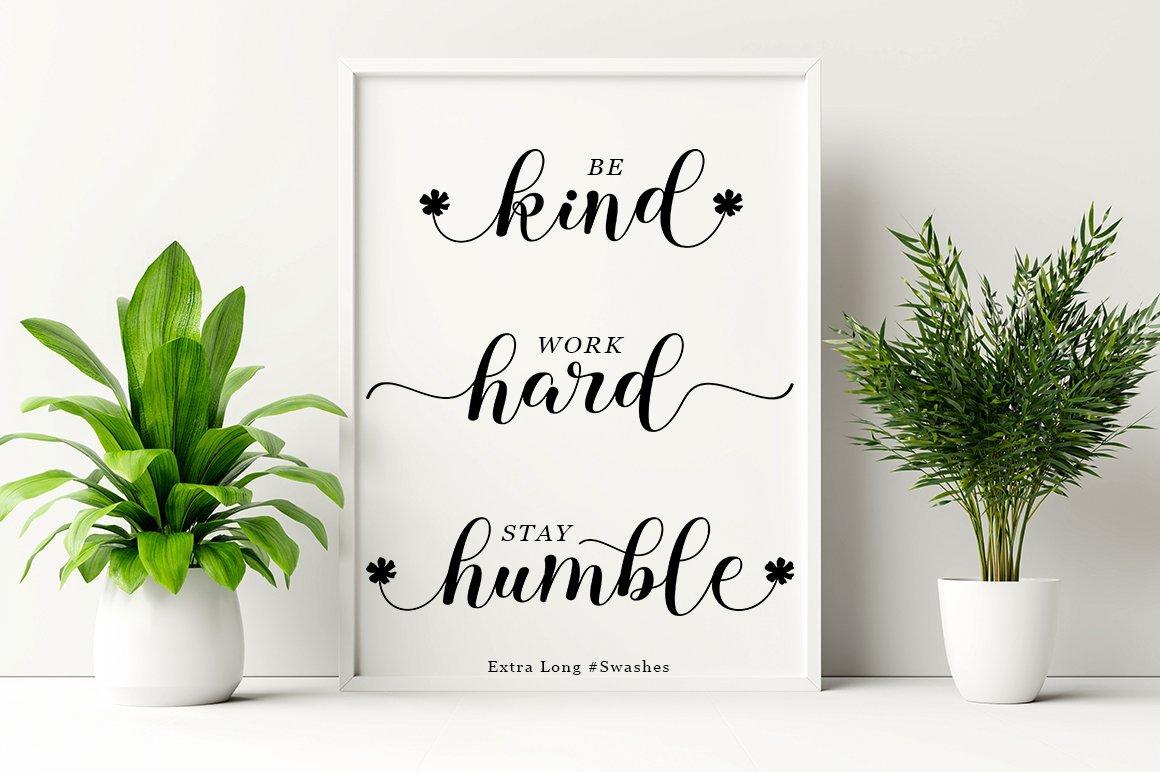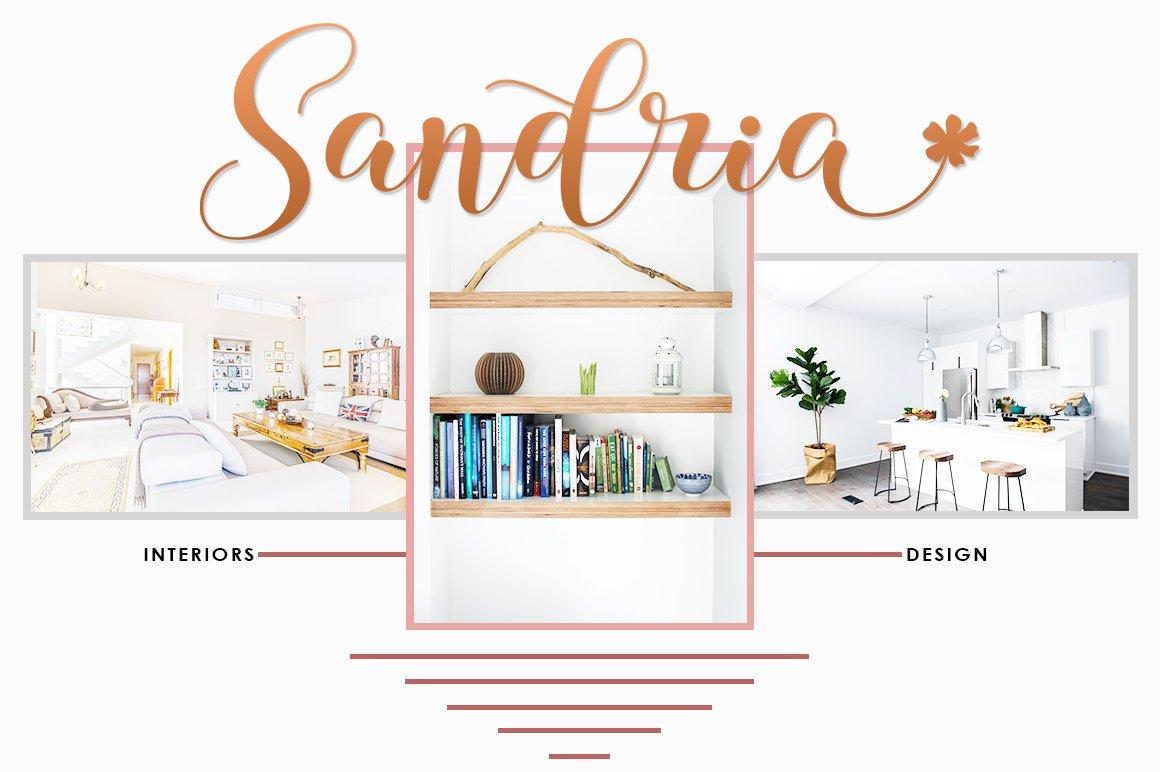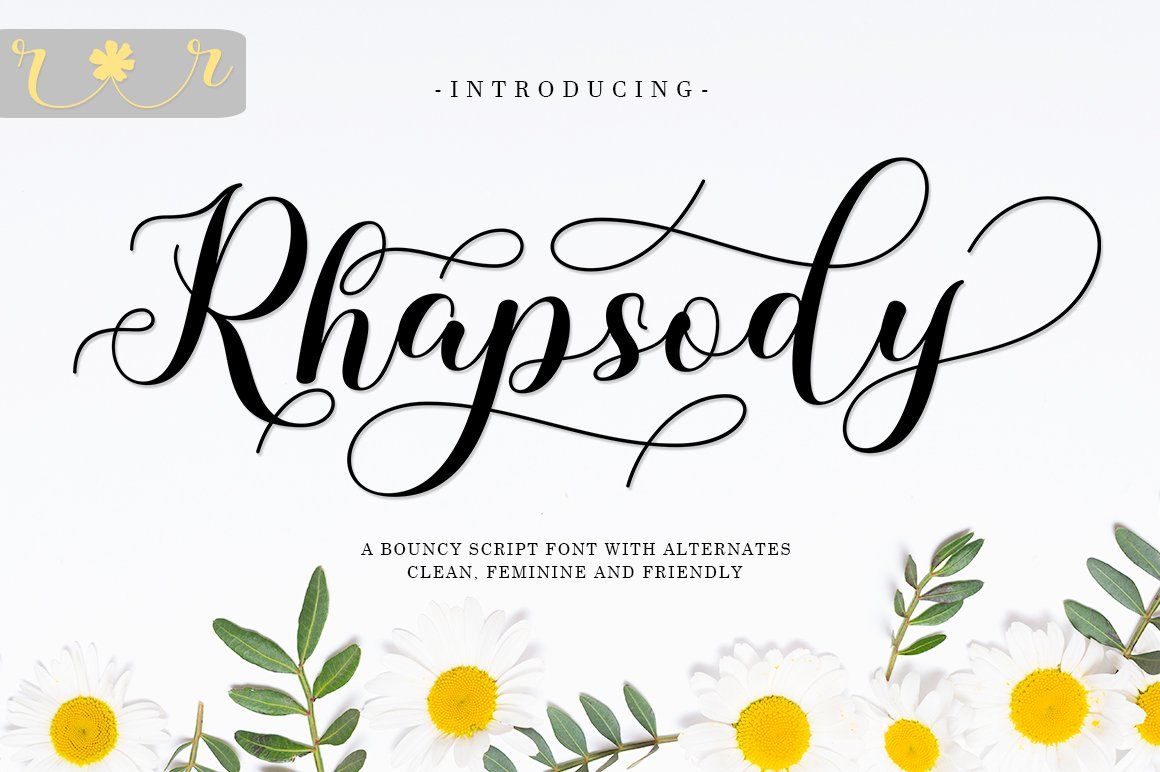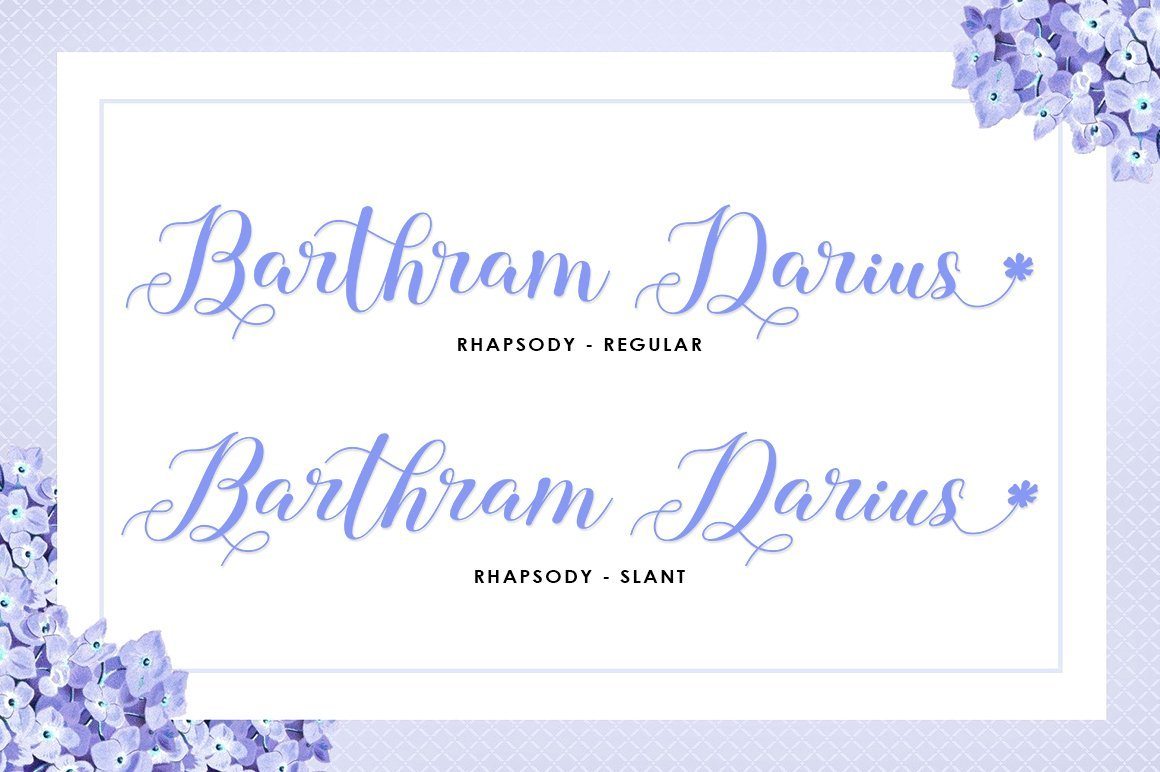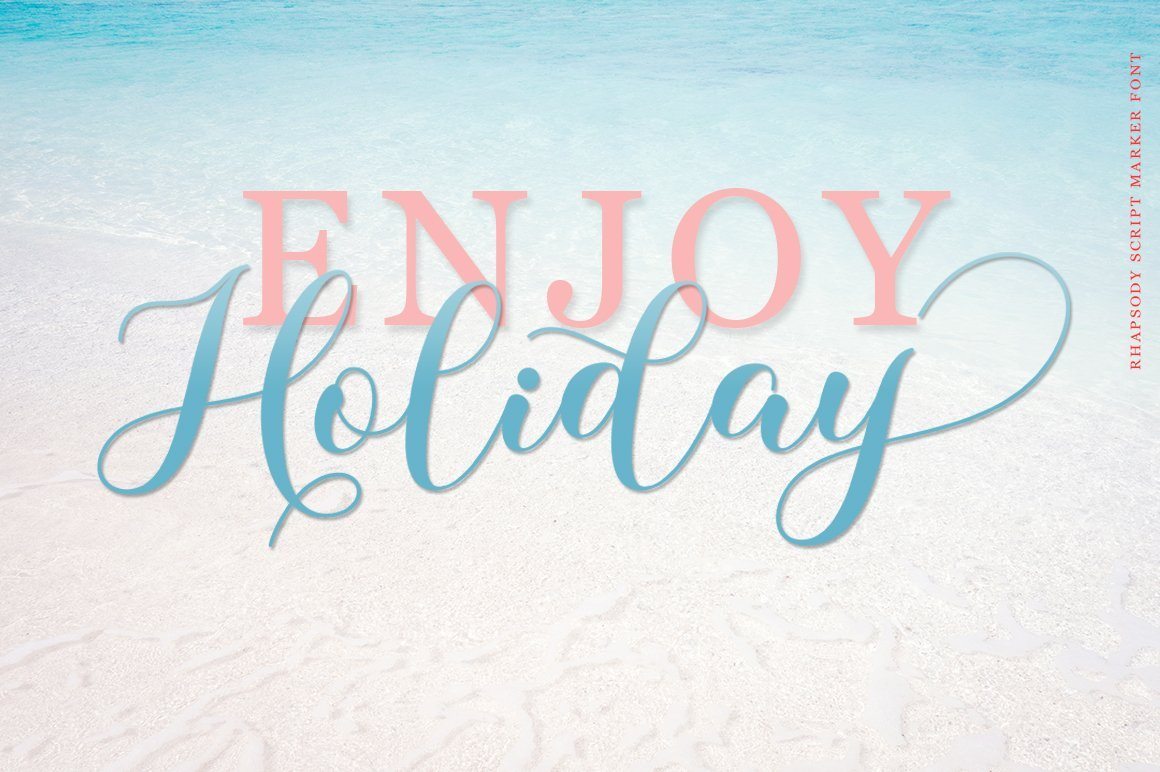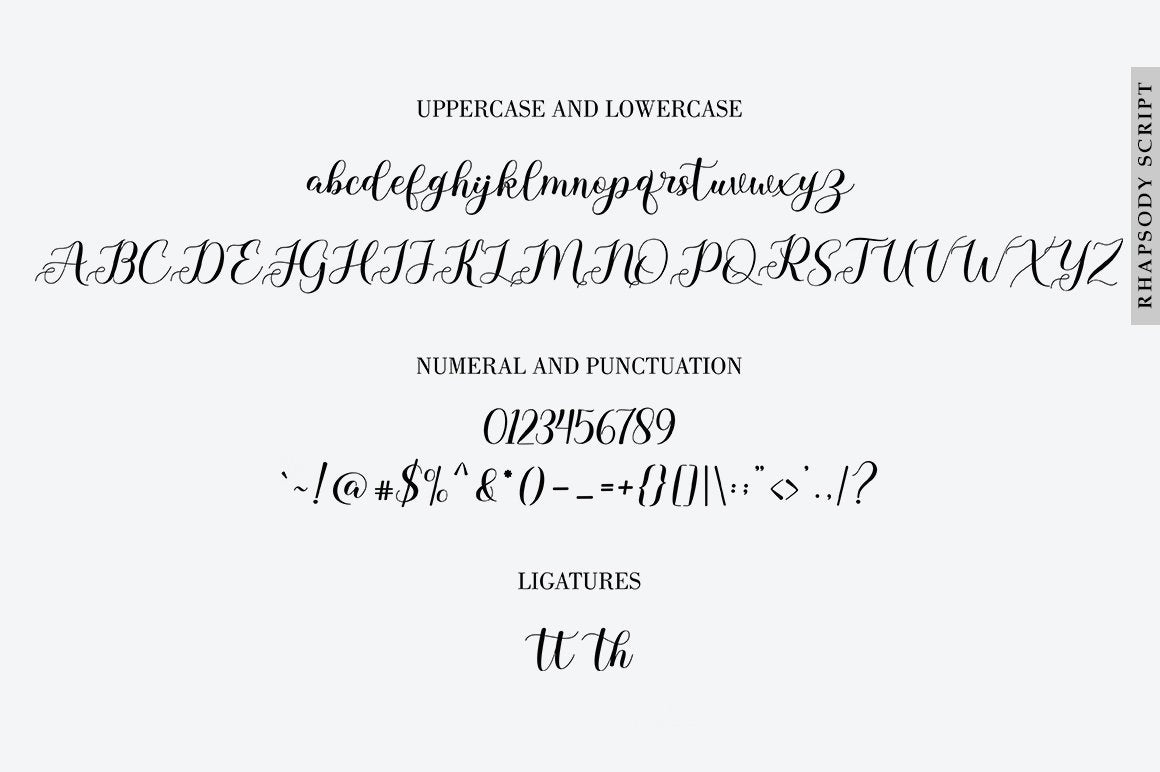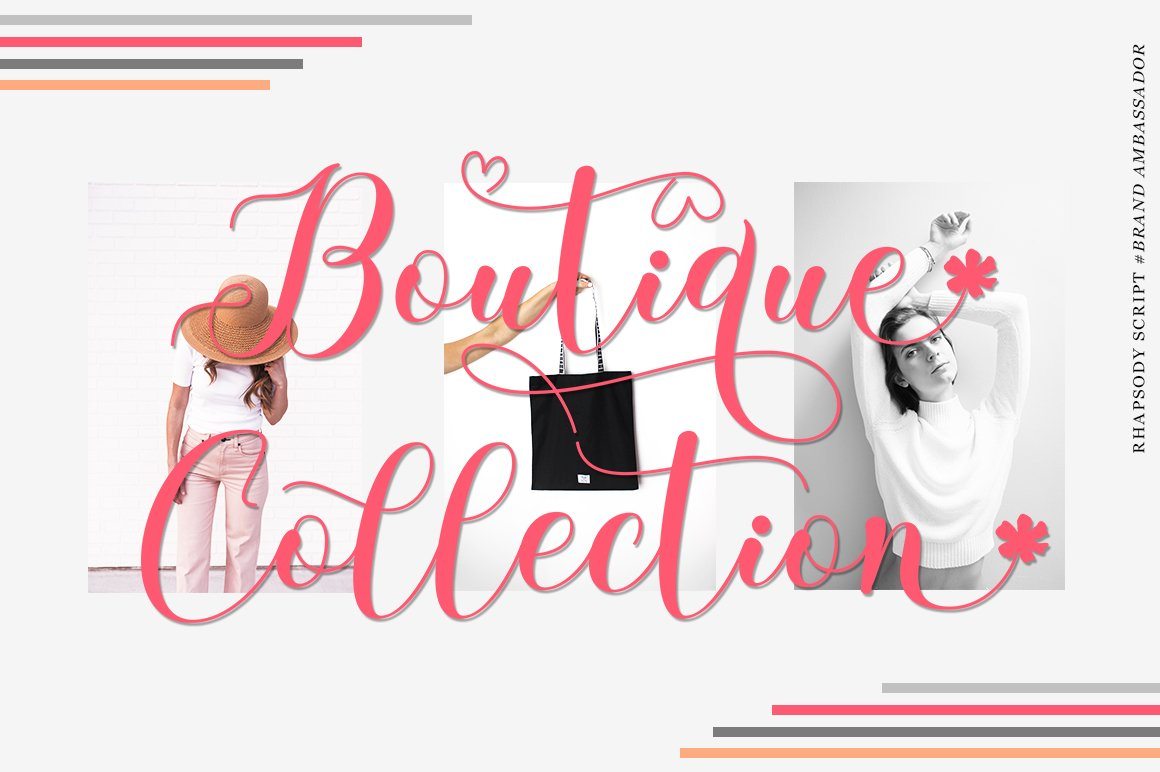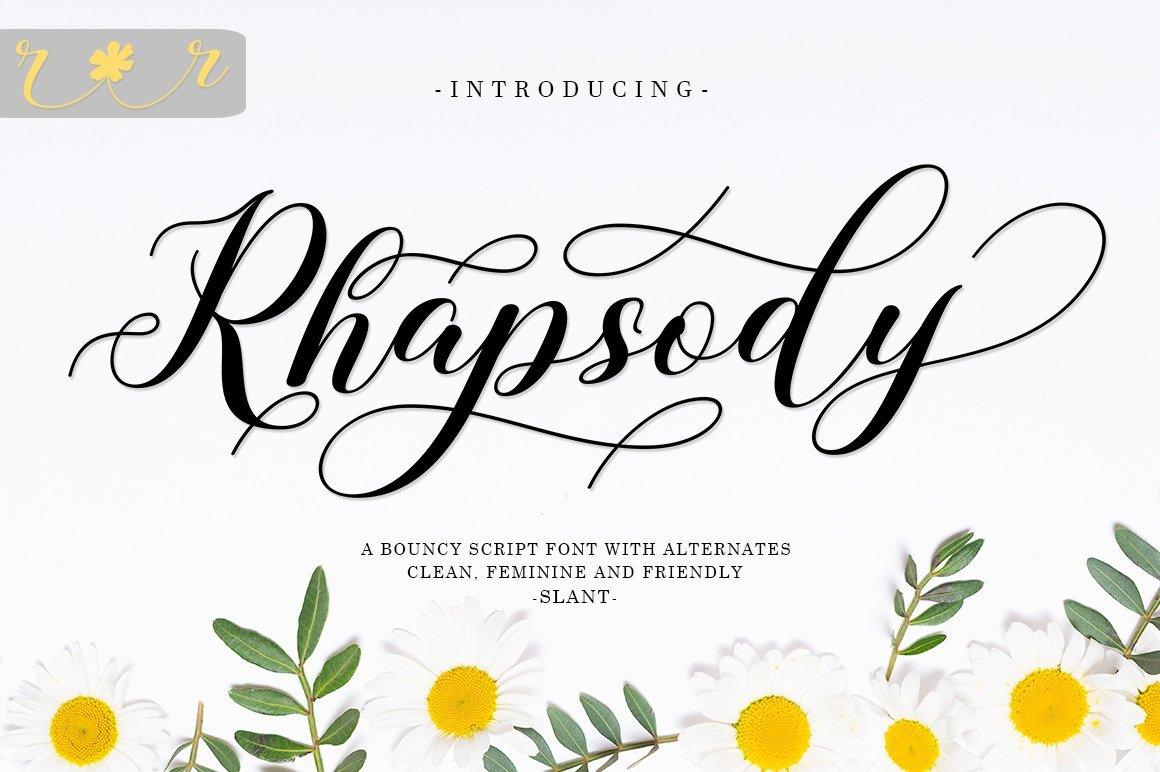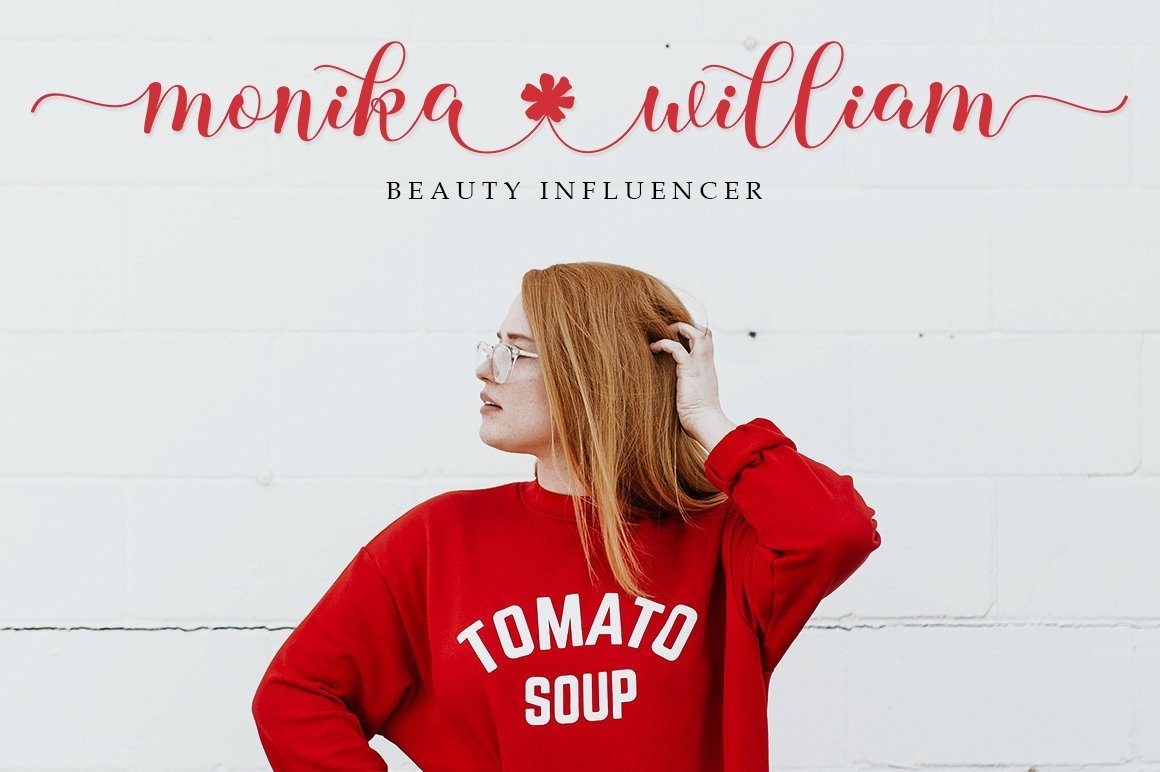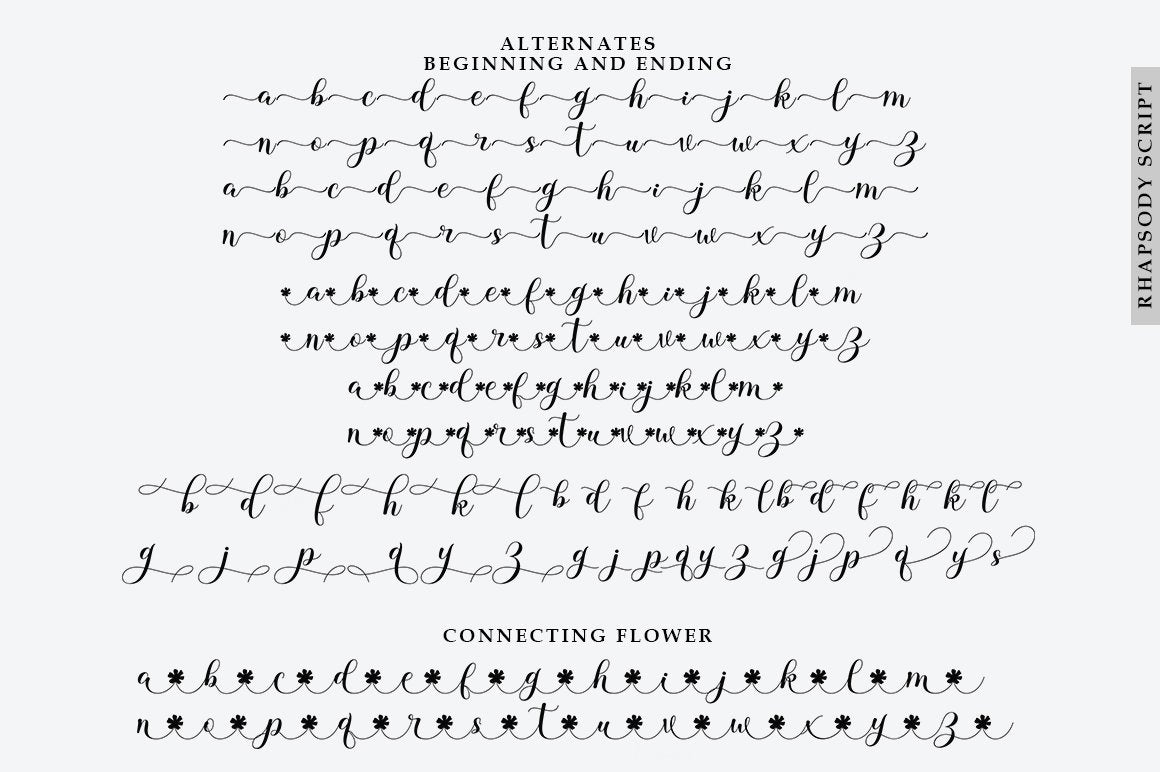
Rhapsody
About Rhapsody
Rhapsody is a handwritten script font with varying baseline, which is designed to convey elegance and style. It is smoothline, clean and feminine. Works perfectly for logos, magazines, menus, books, invitations, wedding / greeting cards, packaging, labels, t-shirt etc. All designs you will have a wonderful homemade touch with Rhapsody. Rhapsody features 400+ glyphs and 181 alternate characters. including initial and terminal letters, alternates, ligatures and multiple language support. Files included: Rhapsody Script (otf, ttf) Rhapsody Script Slant (otf, ttf) To enable the OpenType Stylistic alternates, you need a program that supports OpenType features such as Adobe Illustrator CS, Adobe Indesign & CorelDraw X6-X7, Microsoft Word 2010 or later versions. and there are additional ways to access alternates / swashes, using Character Map (Windows). How to access all alternative characters using Adobe Illustrator: https://www.youtube.com/watch?v=XzwjMkbB-wQ How to access all alternative characters, using Windows Character Map with Photoshop: https://www.youtube.com/watch?v=Go9vacoYmBw Thank you!